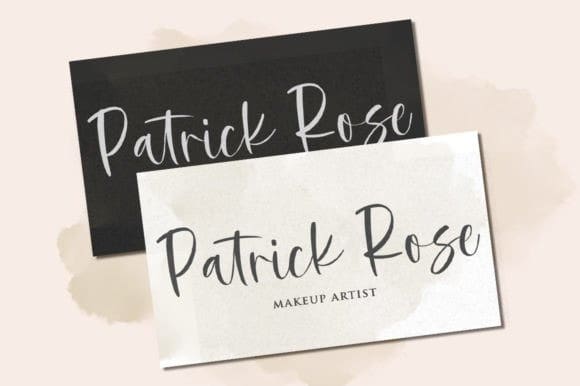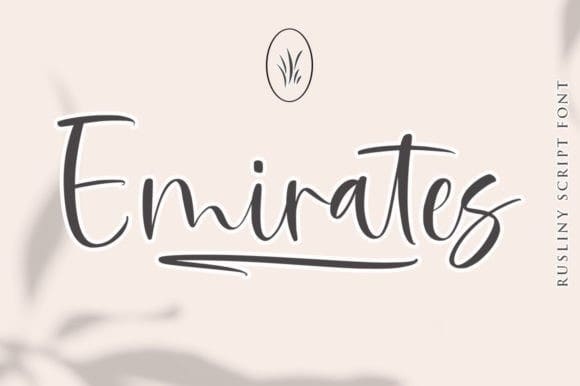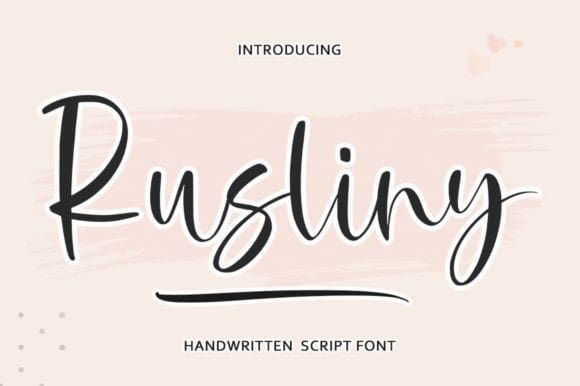
Rusliny Script Font
Rusliny Script Font is a handwritten font that effortlessly blends traditional calligraphy with a contemporary twist. With its modern calligraphic feel, this font captures the essence of fluid strokes and graceful curves. Each letter is meticulously crafted, exhibiting a balance between sophistication and simplicity. The gentle swashes and delicate details lend an air of elegance, making it perfect for invitations, branding, and other creative projects where a touch of refined beauty is desired. Falling in love brings a timeless charm to your designs.